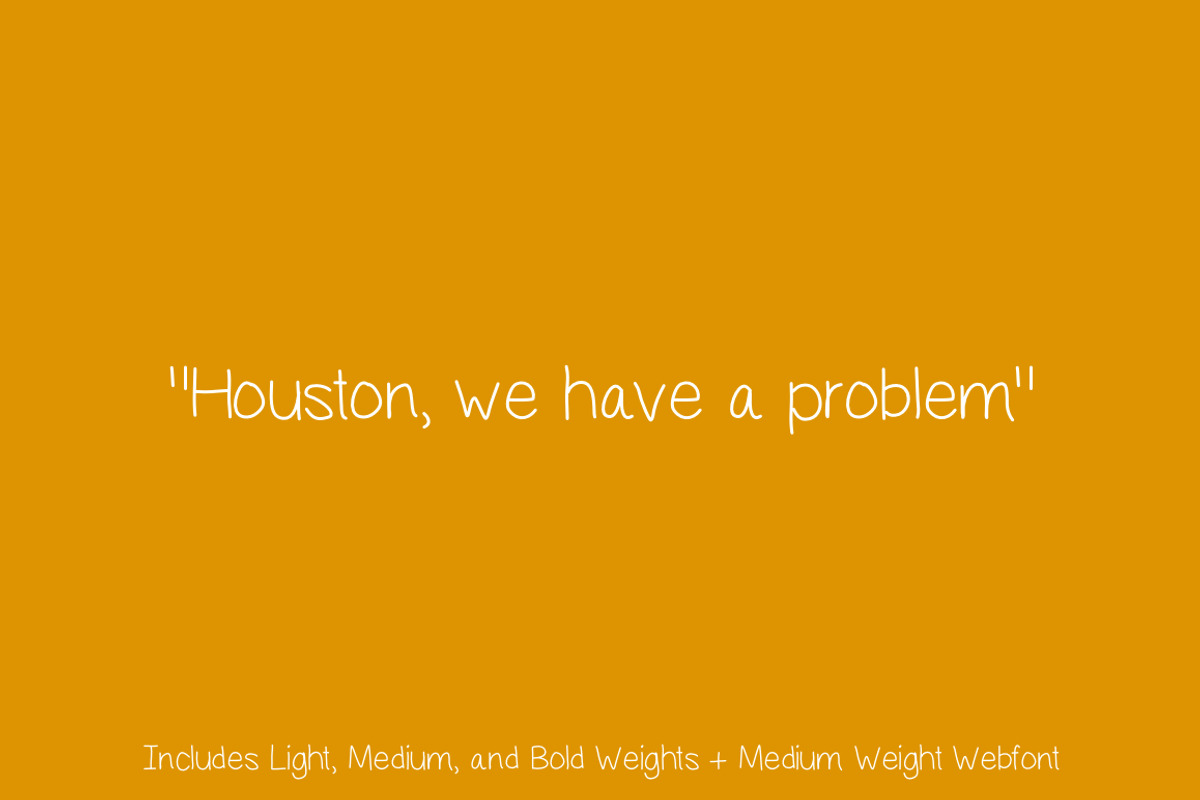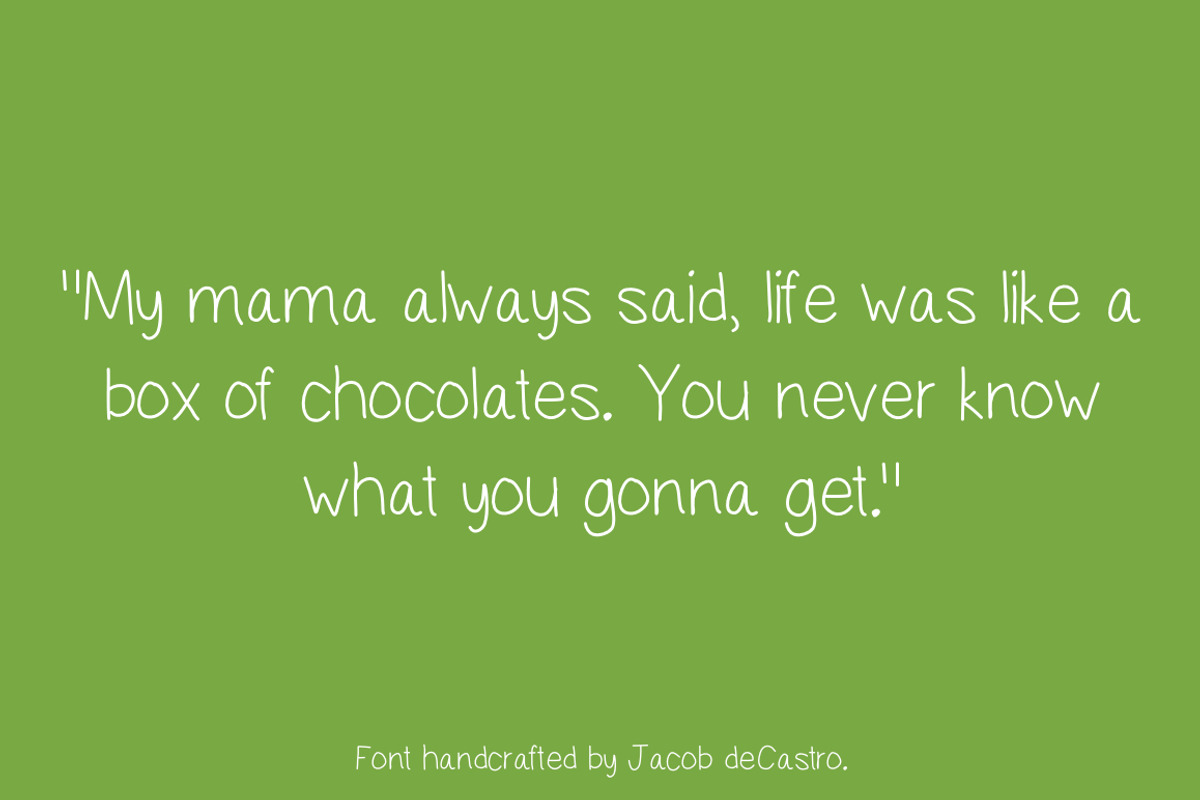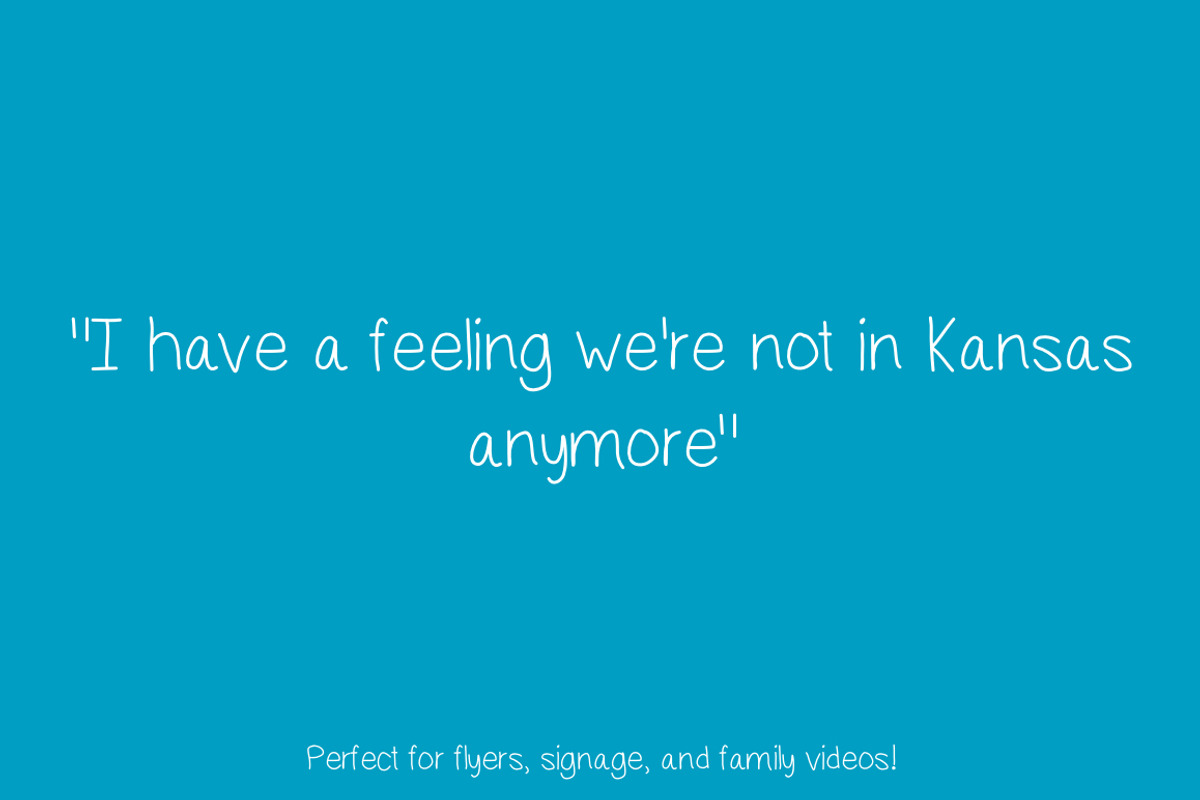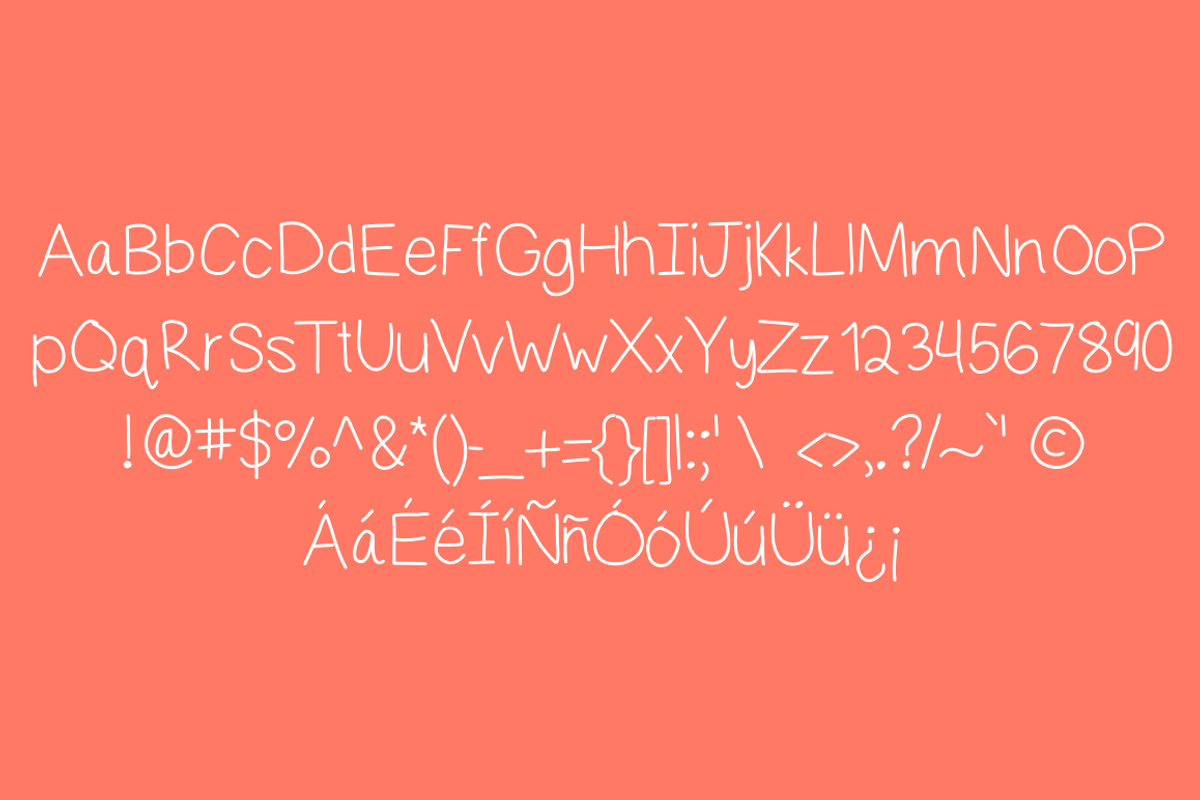
Mast Handwritten Font
Mast Handwritten Font by Jacob deCastro is a font selected for branding, posters, packaging, typography.
Why Mast Handwritten Font is worth a look
Mast Handwritten Font by Jacob deCastro fits naturally into Branding, posters, packaging, typography.